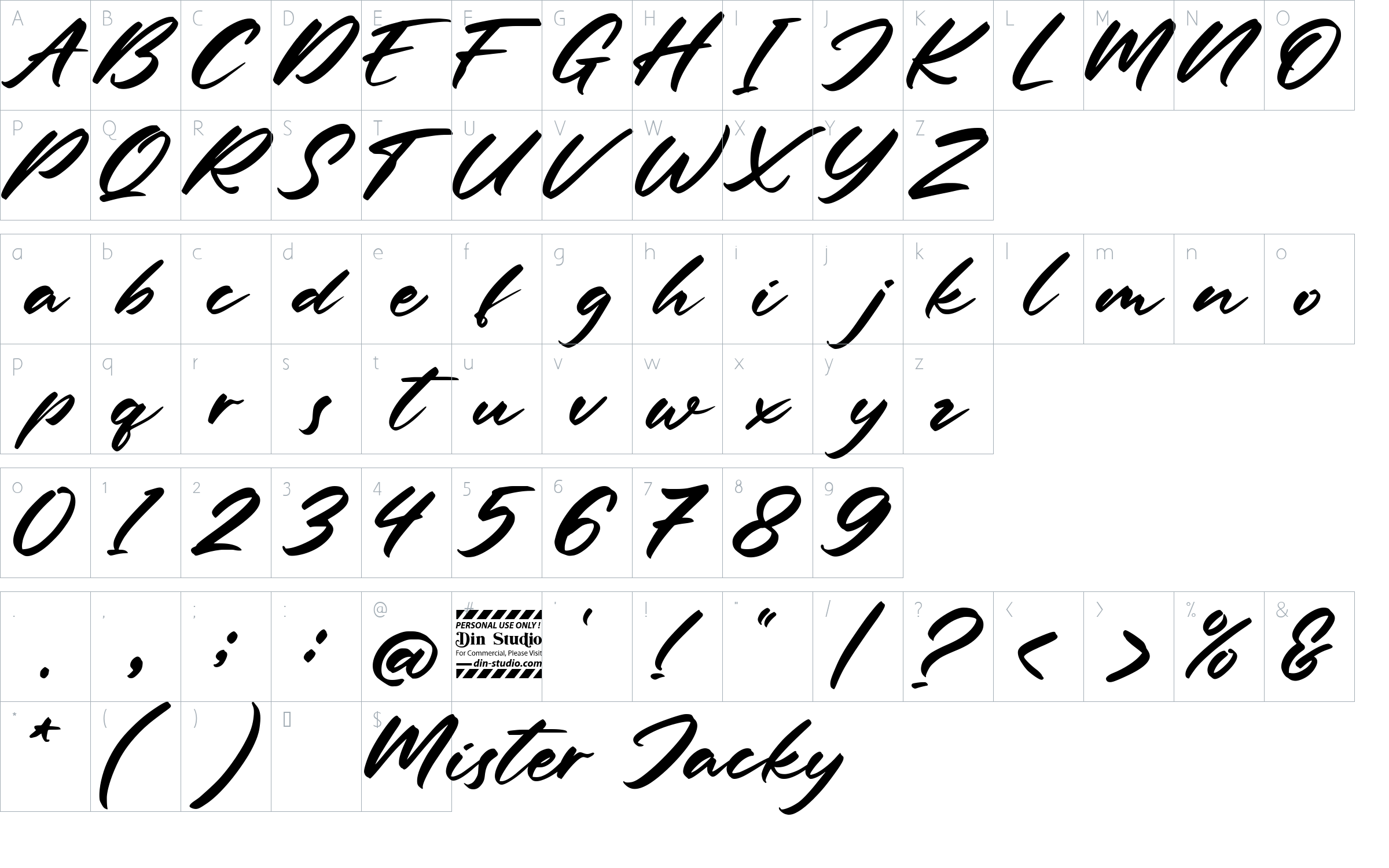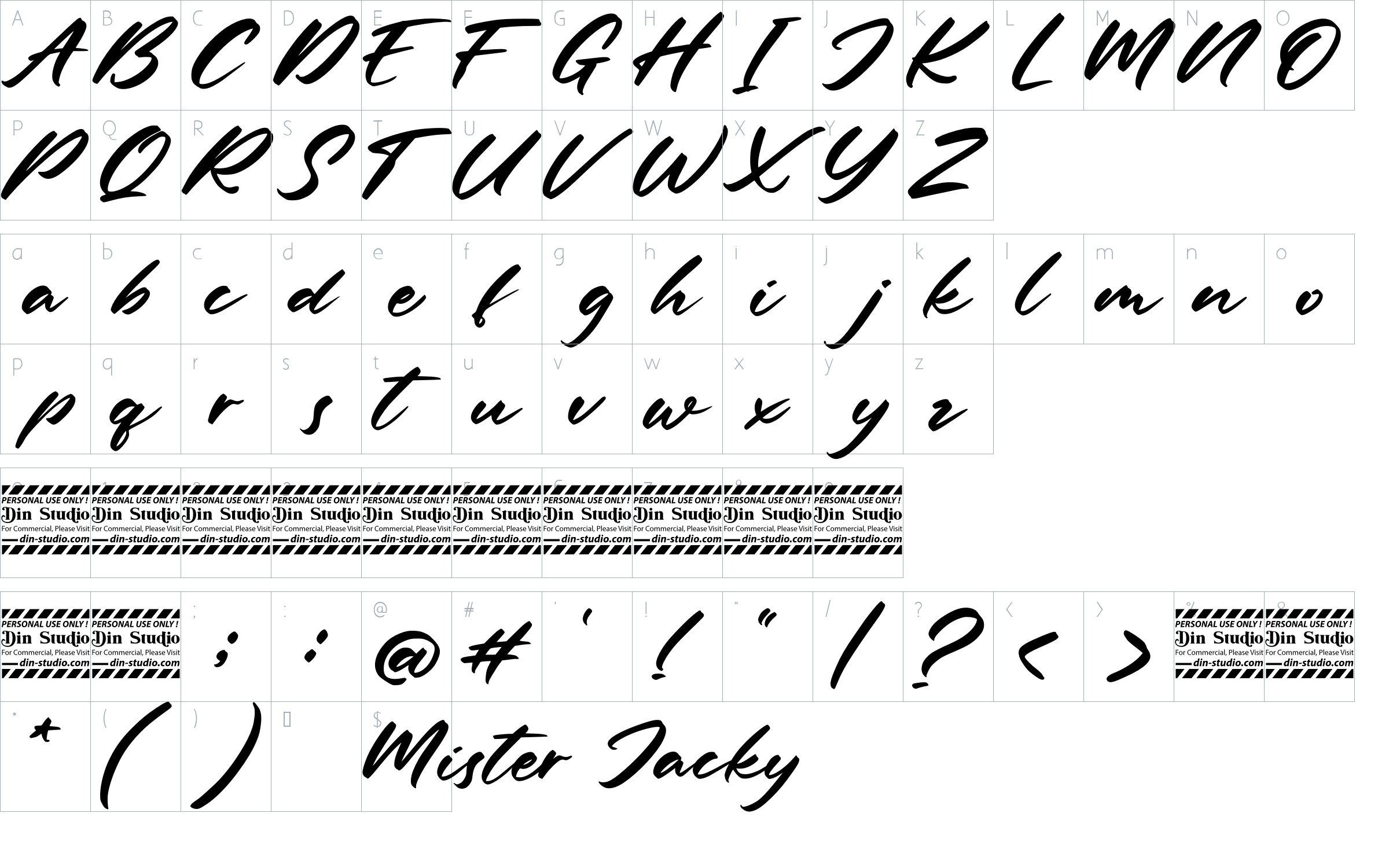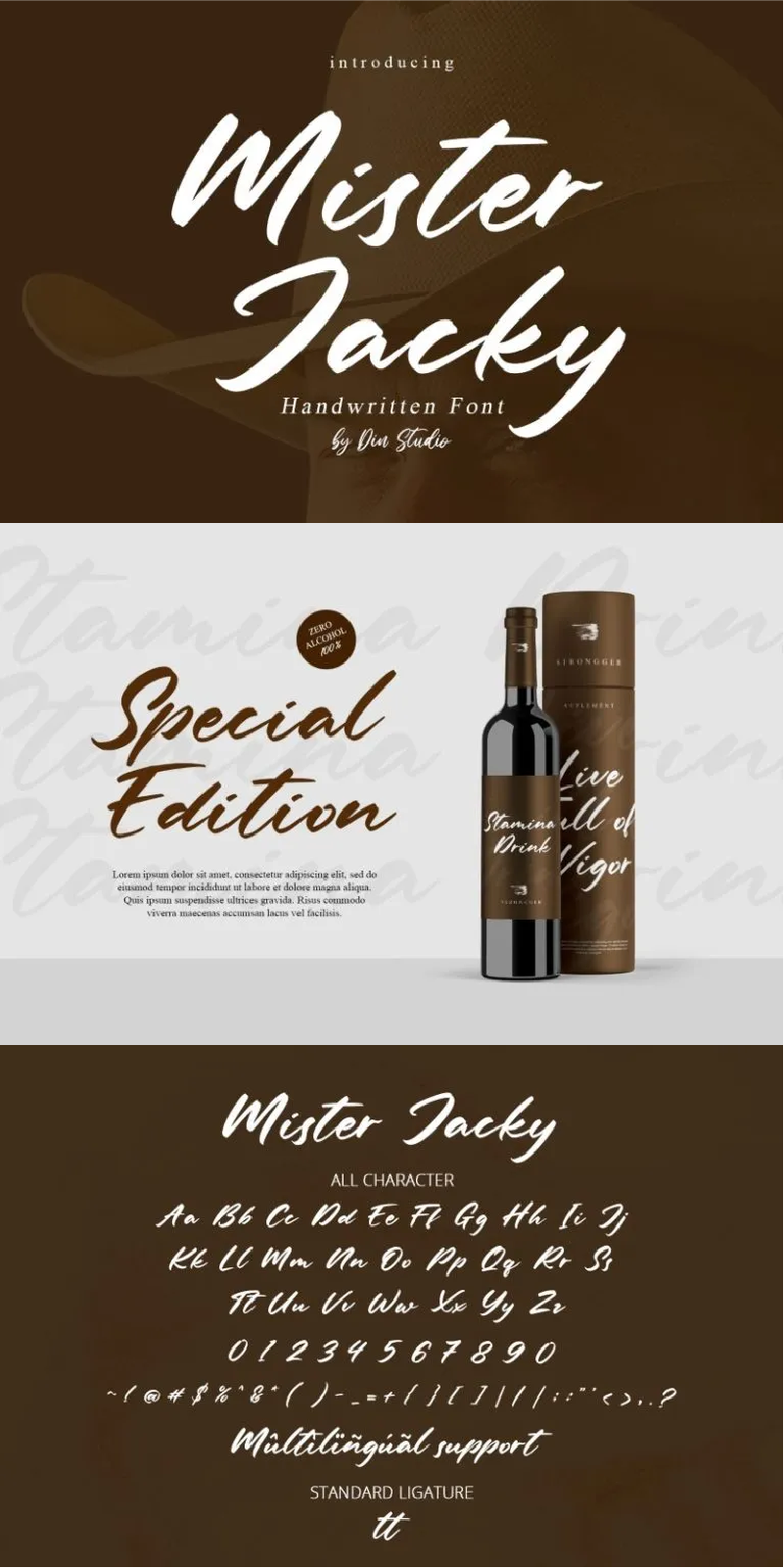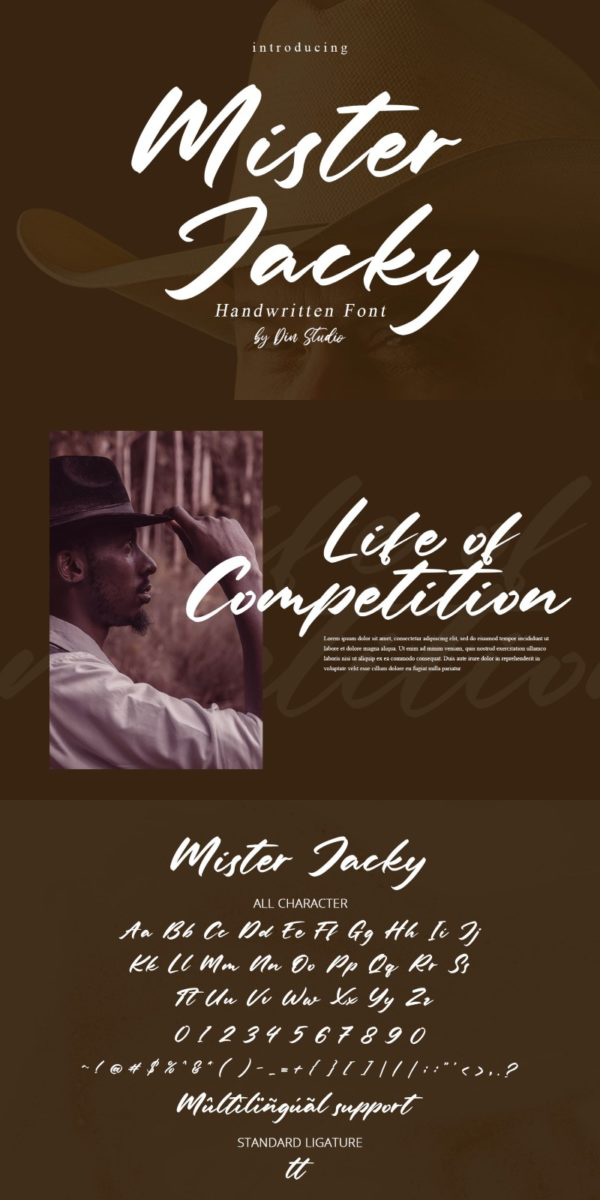
Mister Jacky Font
About Mister Jacky
Mister Jacky – Modern Handwritten Font. It will make your design project more powerful and beautiful. The font is suitable for any project such as logos, branding and quotes. See the previews above to get some inspiration on how you can use them. Enjoy the Font!
-Ligature
-Numerals and Punctuation (OpenType Standard)